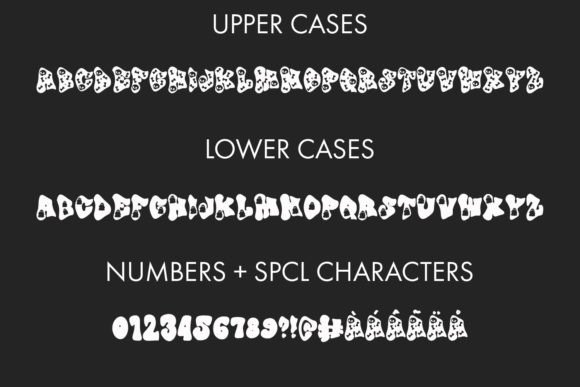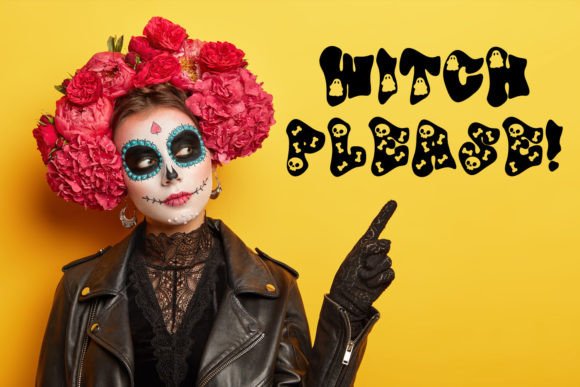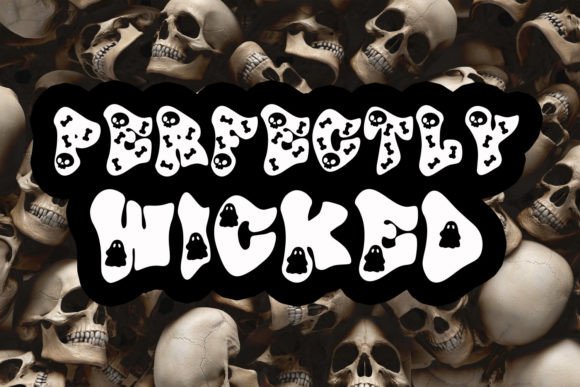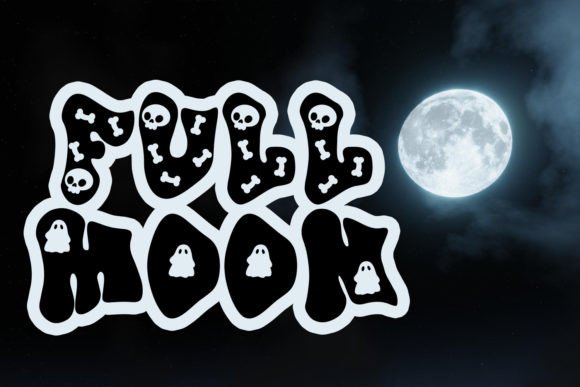
Introducing Ghost Town Font: The Spookiest Addition to Your Font Library
Are you ready to add a dash of spookiness to your designs? Look no further than the Ghost Town Font, a retro and quirky decorative font that’s perfect for Halloween-themed projects. With its unique blend of eerie and playful elements, this font is sure to cast a spell on your audience.
What is Ghost Town Font?
Ghost Town Font is a decorative font designed to evoke the spirit of Halloween. Its retro and quirky style makes it perfect for a variety of projects, from stencils and T-shirts to mugs and more. Whether you’re a designer, crafter, or simply a Halloween enthusiast, this font is sure to inspire your creativity.
Key Features of Ghost Town Font
- Retro and Quirky Style: Ghost Town Font boasts a unique, vintage-inspired design that’s sure to stand out.
- Halloween Vibe: With its spooky and playful elements, this font is perfect for Halloween-themed projects.
- Decorative and Eye-Catching: The font’s decorative style makes it perfect for adding a touch of personality to your designs.
- Versatile: Use Ghost Town Font for a variety of projects, from stencils and T-shirts to mugs and more.
Why Use Ghost Town Font?
There are many reasons why Ghost Town Font should be a part of your font library. Here are just a few:
- Add a Touch of Spookiness: With Ghost Town Font, you can add a dash of spookiness to your designs and create a lasting impression on your audience.
- Stand Out from the Crowd: The font’s unique style ensures that your designs will stand out from the crowd and grab attention.
- Perfect for Halloween Projects: Whether you’re working on a Halloween-themed project or simply want to add a touch of spookiness to your designs, Ghost Town Font is the perfect choice.
- Easily Customizable: The font is easy to customize, making it perfect for a variety of projects and design styles.
Project Ideas Using Ghost Town Font
The possibilities are endless when it comes to using Ghost Town Font. Here are a few project ideas to get you started:
- Halloween-themed Stencils: Use Ghost Town Font to create spooky and playful stencils for your Halloween projects.
- T-shirts and Hoodies: Add a touch of spookiness to your T-shirts and hoodies with Ghost Town Font.
- Mugs and Water Bottles: Create spooky and playful designs for your mugs and water bottles using Ghost Town Font.
- Signs and Banners: Use Ghost Town Font to create eye-catching signs and banners for your Halloween events.
Tips for Using Ghost Town Font
Here are a few tips for using Ghost Town Font:
- Experiment with Different Sizes: Try using Ghost Town Font in different sizes to create a unique and eye-catching design.
- Combine with Other Fonts: Combine Ghost Town Font with other fonts to create a unique and interesting design.
- Add Graphics and Images: Add graphics and images to your design to make it more visually appealing.
- Have Fun: Most importantly, have fun and be creative with Ghost Town Font!
| Font Name | Ghost Town Font |
| Author | freelingdesignhouse |
Ghost Town Font is a unique and quirky decorative font that’s perfect for Halloween-themed projects. With its retro and spooky style, this font is sure to add a touch of personality to your designs. Whether you’re a designer, crafter, or simply a Halloween enthusiast, Ghost Town Font is a must-have addition to your font library. So why wait? Download Ghost Town Font today and start creating spooky and quirky designs that will leave a lasting impression on your audience.